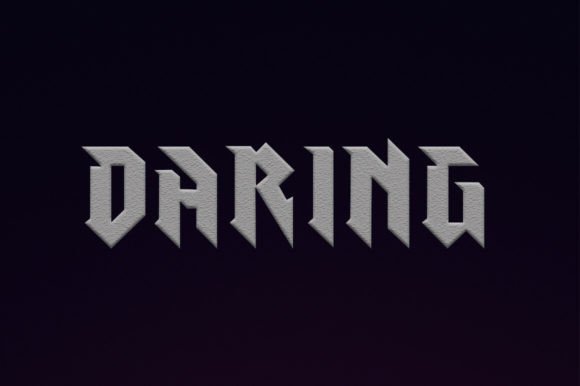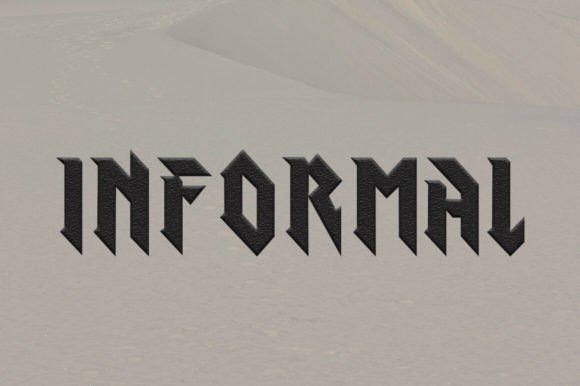
Unleash Your Creativity with GRAFITTI: A Stunning Blackletter Font
Are you a designer, craftor, or artist looking for a unique and eye-catching font to add to your projects? Look no further than GRAFITTI, a striking blackletter font with a gothic style that’s sure to make your work stand out. In this article, we’ll dive into the features and benefits of GRAFITTI, and explore how this incredible font can elevate your designs to the next level.
What is GRAFITTI?
GRAFITTI is a blackletter font with a gothic style that’s perfect for creating bold and dramatic designs. This font is designed to evoke the spirit of traditional blackletter typography, with intricate details and ornate swashes that add a touch of elegance to any project. Whether you’re working on a logo, a poster, or a craft project, GRAFITTI is the perfect choice for anyone looking to add a bit of edge and sophistication to their design.
Key Features of GRAFITTI
- Blackletter font with a gothic style: GRAFITTI’s bold and dramatic design makes it perfect for creating eye-catching headlines, titles, and logos.
- Ornate swashes and details: Add a touch of elegance and sophistication to your designs with GRAFITTI’s intricate swashes and details.
- Perfect for designers and craftors: GRAFITTI is ideal for anyone working on creative projects, from logos and posters to crafts and DIY projects.
Tips and Inspiration for Using GRAFITTI
Here are a few tips and ideas to get you started with GRAFITTI:
- Use GRAFITTI for headlines and titles: GRAFITTI’s bold and dramatic design makes it perfect for creating eye-catching headlines and titles.
- Add a touch of elegance with swashes: GRAFITTI’s ornate swashes and details can add a touch of sophistication and elegance to any design.
- Experiment with different colors and textures: GRAFITTI looks great in a variety of colors and textures, so don’t be afraid to experiment and try out different combinations.
In conclusion, GRAFITTI is a stunning blackletter font with a gothic style that’s perfect for designers, craftors, and artists looking to add a unique and eye-catching element to their projects. With its PUA encoding and ornate swashes and details, GRAFITTI offers unparalleled creative control and flexibility. Whether you’re working on a logo, a poster, or a craft project, GRAFITTI is the perfect choice for anyone looking to unleash their creativity and take their designs to the next level.